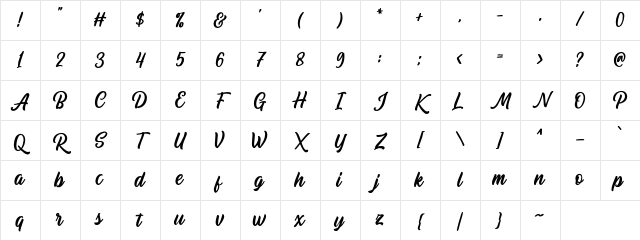
Complete Audacity Script DEMO Regular glyph index. Displaying only characters natively supported by Audacity Script DEMO Regular font.
Audacity Script DEMO flows with the natural rhythm of handwritten lettering, making it ideal for designs that call for warmth and personal expression.
Font Pairing: Combine Audacity Script DEMO with a simple geometric sans for maximum contrast - the tension between flowing curves and clean structure is a classic typographic pairing.
Pro Tip: Use Audacity Script DEMO for short runs of text - names, titles, or taglines. Extended body copy in script faces tires the eye quickly.